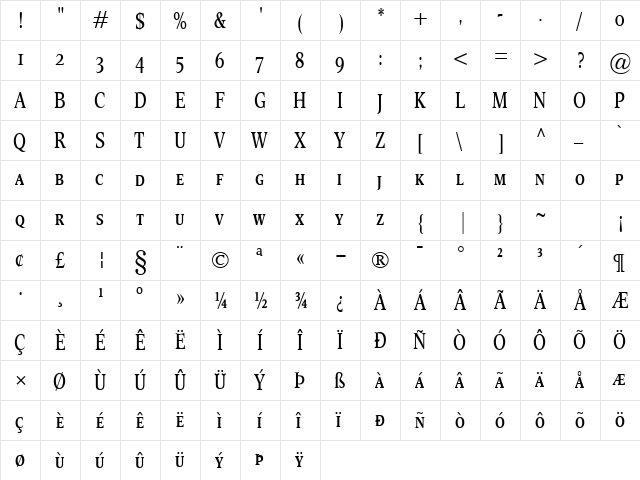
Esperanto Cond SmallCaps Regular
Design Context for Esperanto Cond SmallCaps Typeface
Esperanto Cond SmallCaps takes a measured approach to typography — its balanced proportions and neutral character make it a reliable workhorse for both digital and print work. Its narrow stance lets it pack a punch even in space-constrained designs.